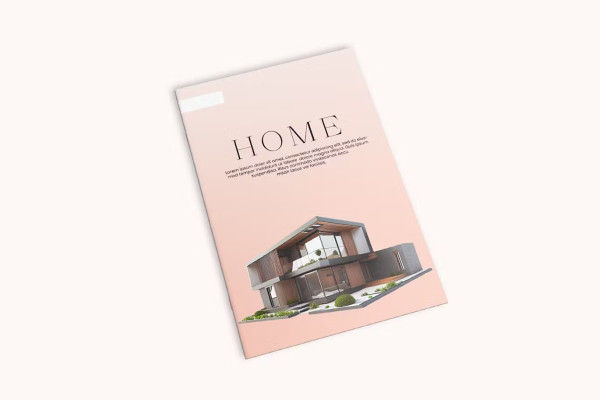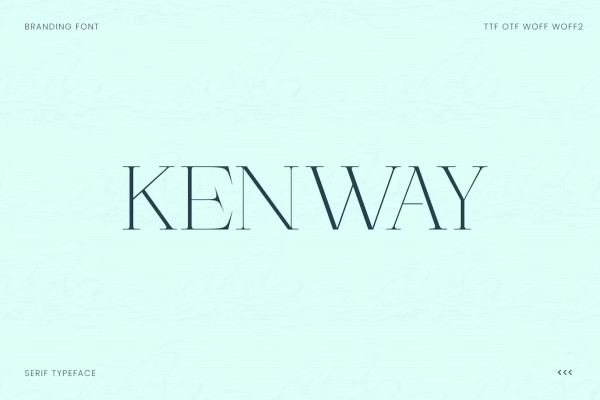
Kenway Font
Kenway Font is a brand new stylish serif typeface. It has a reliable, uncompromising style, with controlled letterforms and modern touches. It shows up wonderfully in logos, magazines and movies. The Kenway font would be perfect for branding, headings, captions, paragraphs, and posters. It was created to make a good impression without sacrificing its beauty and readability. It displays a clean, minimalist, warm and original style, while being designed to be versatile.
The typeface has only one weight: Light. All offer extended language support, upper and lower case letters, numbers and extended punctuation.